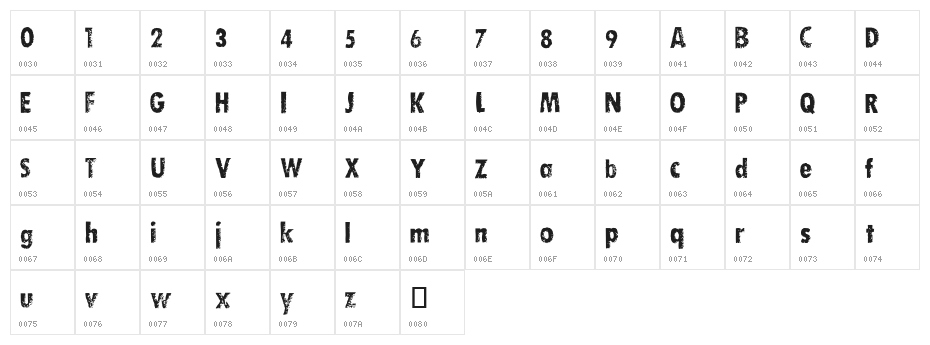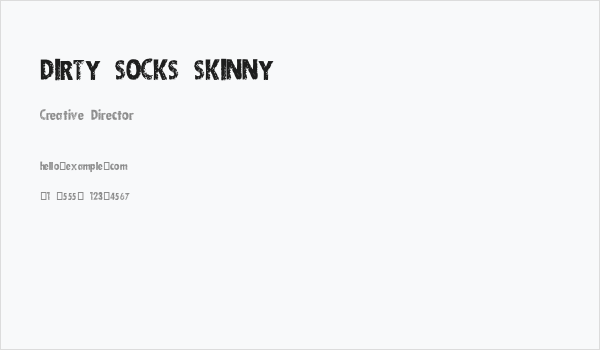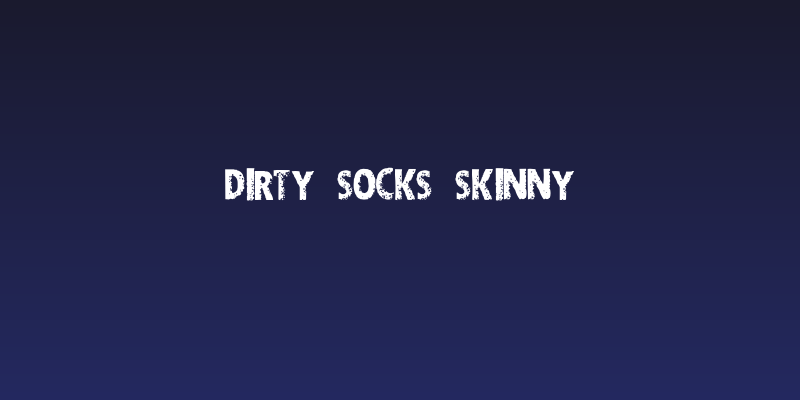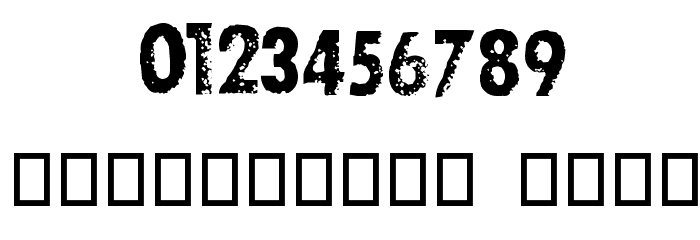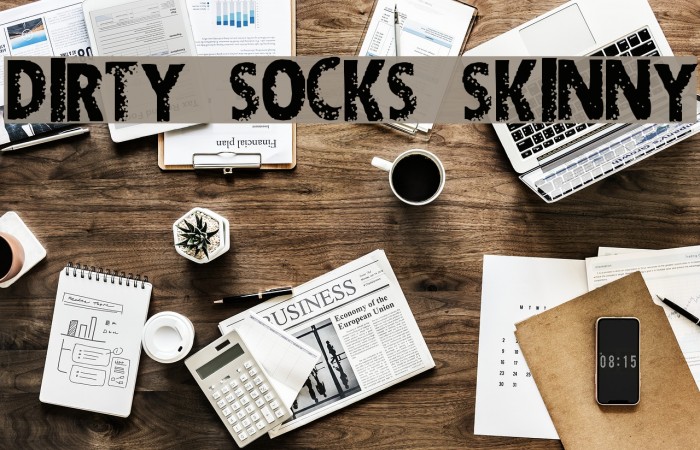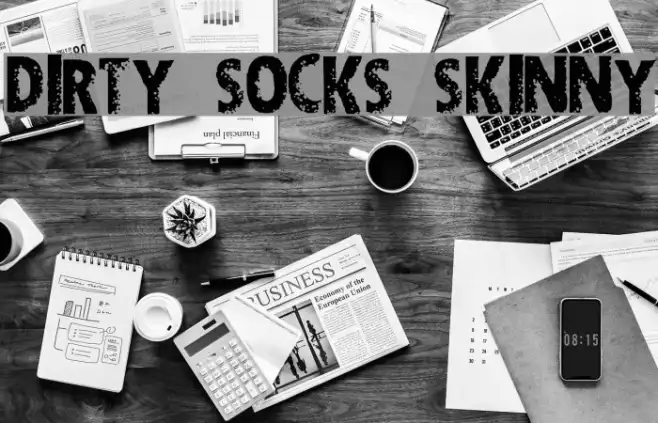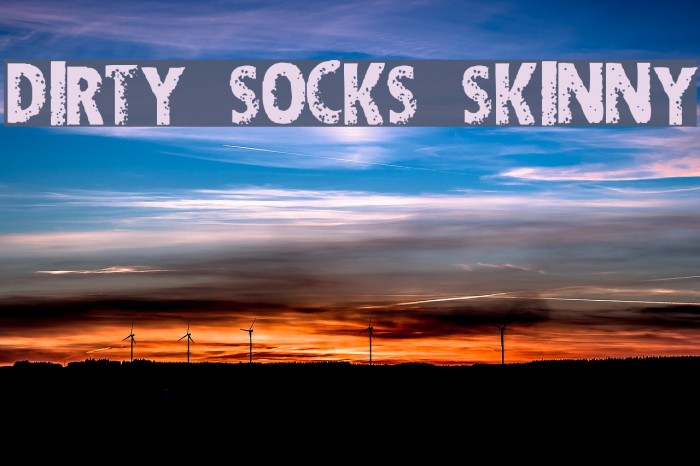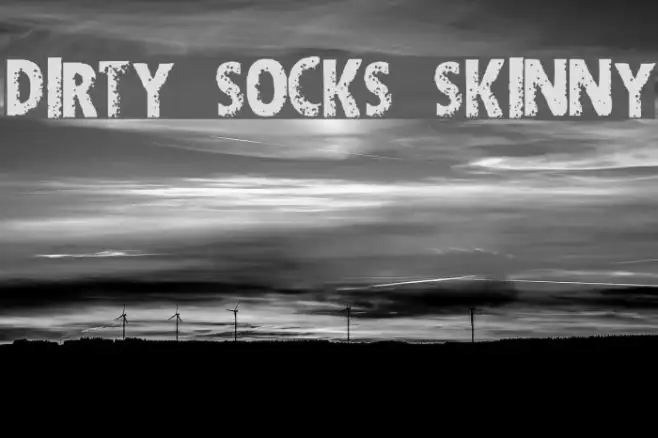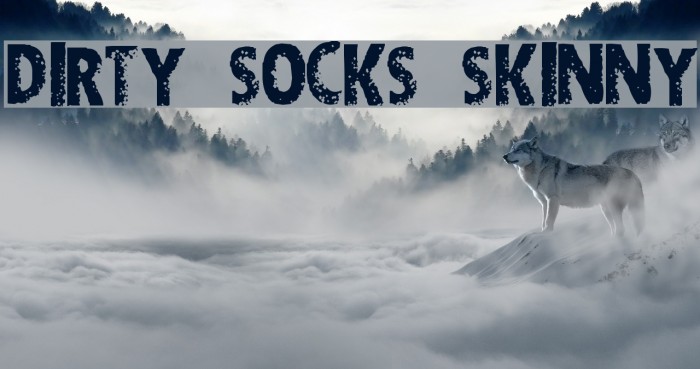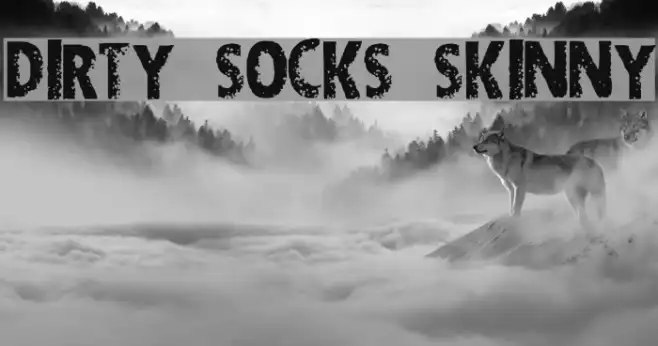
DIRTY SOCKS SKINNY Font
DIRTY SOCKS SKINNY Description
This font features a distressed, grunge style with a textured appearance that gives it a worn, rugged look. The uppercase and lowercase letters maintain a consistent boldness, with irregular edges and a speckled pattern that adds to its unique character. The numbers follow the same design, ensuring a cohesive appearance across all characters. The font's style is reminiscent of urban street art or vintage posters, making it ideal for projects that require a bold, eye-catching statement. Its rough texture suggests a sense of edginess and rebellion, perfect for creative designs that aim to stand out.
| Overall Style | Grunge, Urban, Edgy |
| Proposed Projects | Ideal for posters, album covers, streetwear branding, and edgy graphic designs. |